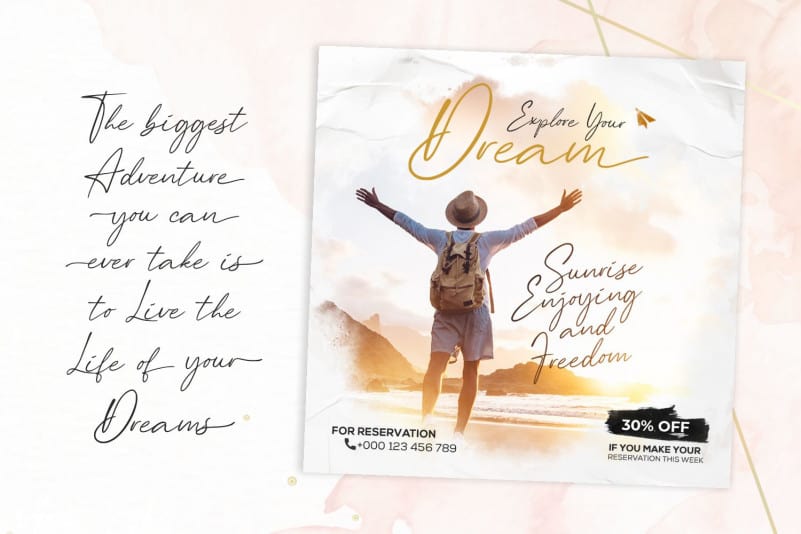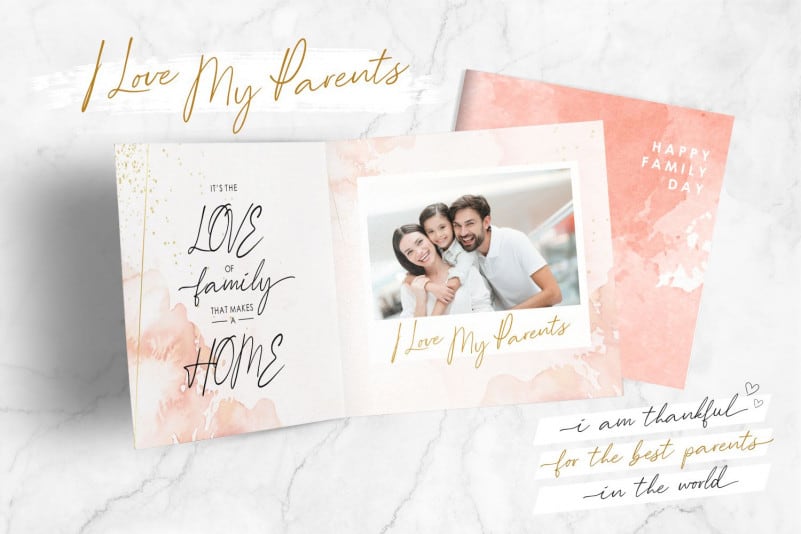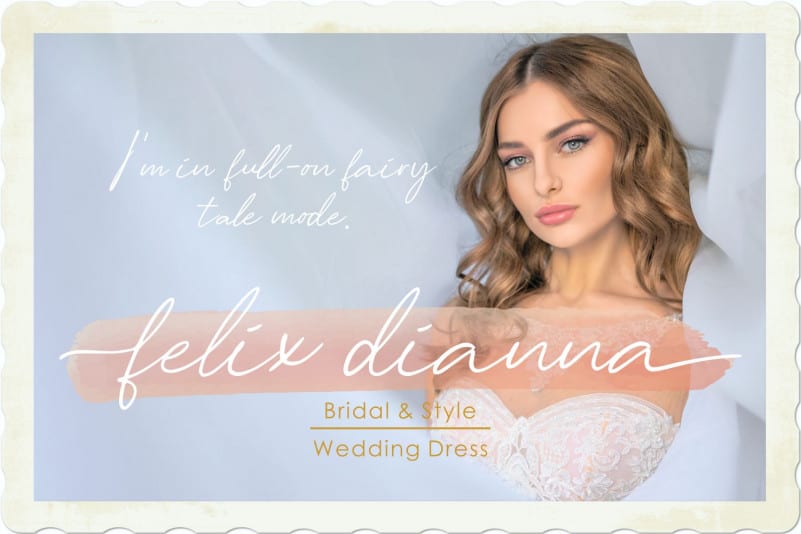
Greather Delight Script Font
Greather Delight Script Font is a beautiful handwritten font, featuring a stylish and relaxed flow. It looks stunning on wedding invitations, thank you cards, quotes, greeting cards, logos, business cards and every other design which needs a handwritten touch.